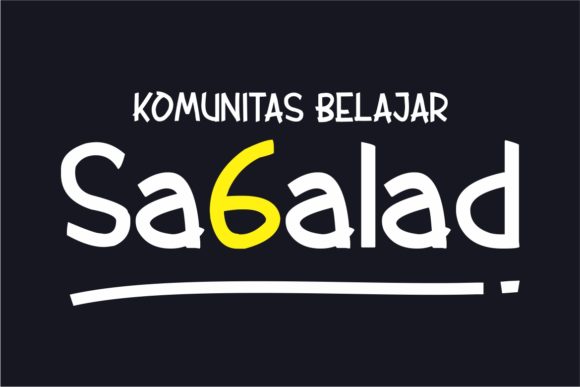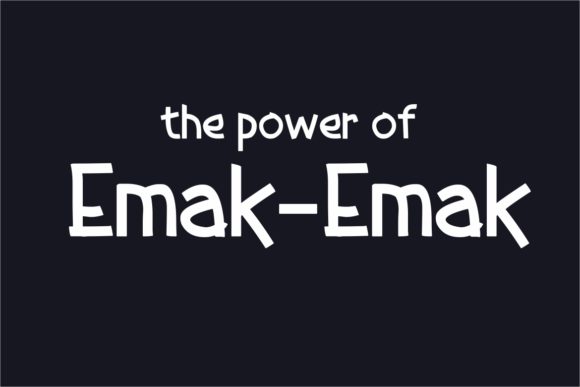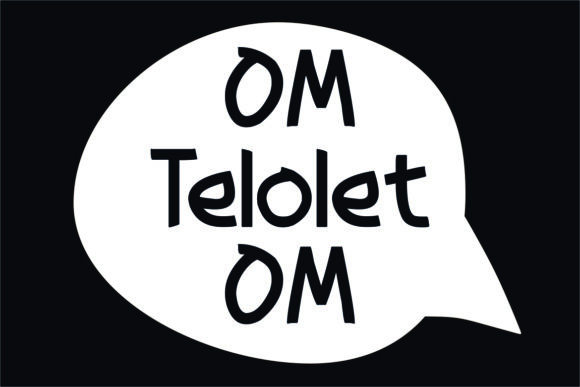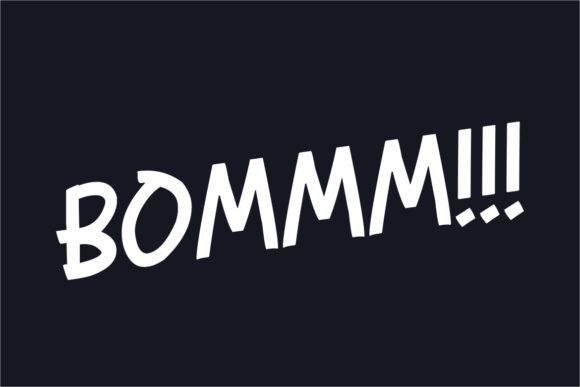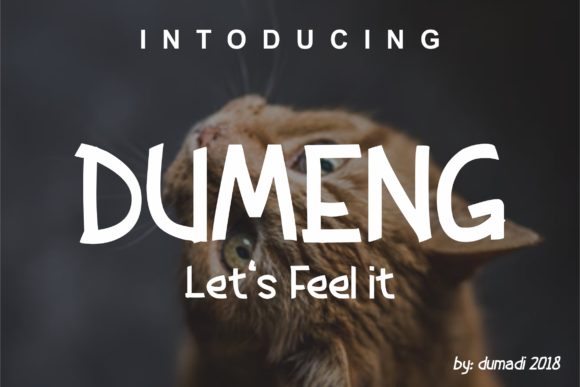
Introducing Dumeng Font: The Modern Typeface for Creative Expression
In the world of typography, fonts play a crucial role in conveying messages, evoking emotions, and creating visual identities. For designers, crafters, and content creators, finding the right font can make all the difference in bringing their ideas to life. This is where Dumeng Font comes in – a modern typeface that exudes a relaxed yet stylish vibe, perfect for a wide range of creative applications.
The Dumeng Font: A Modern Typeface with a Relaxed Look
The Dumeng Font is a contemporary typeface designed to provide a fresh and laid-back feel to various design projects. Its unique characteristics make it an excellent choice for YouTube thumbnail titles, t-shirts, posters, and more. With its clean lines, subtle curves, and optimized letter spacing, Dumeng Font ensures that your message stands out while maintaining an air of sophistication.
Key Features of Dumeng Font
- Modern and Fresh Design: Dumeng Font boasts a sleek and modern design that instantly captures attention. Its unique style is perfect for creators looking to add a touch of contemporary flair to their work.
- Relaxed yet Stylish: The font’s relaxed look makes it ideal for designs that require a friendly and approachable tone. Whether you’re creating a YouTube thumbnail or a poster, Dumeng Font helps you connect with your audience on a more personal level.
- Versatile and Adaptable: Dumeng Font is incredibly versatile and can be used across various platforms and mediums. From digital applications like YouTube thumbnails and social media graphics to print materials like t-shirts and posters, this font adapts seamlessly.
- Easy to Read: One of the key advantages of Dumeng Font is its readability. Even at smaller sizes, the font remains clear and legible, ensuring that your message is conveyed effectively.
Use Cases for Dumeng Font
Dumeng Font’s flexibility makes it suitable for a wide array of projects. Here are some popular use cases:
- YouTube Thumbnails: Stand out in a crowded YouTube landscape with eye-catching thumbnails that utilize Dumeng Font. Its modern and relaxed look is sure to grab viewers’ attention.
- T-Shirts and Merchandise: Add a stylish touch to your apparel and merchandise designs with Dumeng Font. It’s perfect for quotes, slogans, and branding.
- Posters and Flyers: Create visually appealing posters and flyers for events, promotions, or informational purposes. Dumeng Font helps you convey your message in a stylish and readable format.
- Social Media Graphics: Elevate your social media presence with custom graphics that incorporate Dumeng Font. It’s ideal for creating engaging posts, stories, and banners.
Tips for Using Dumeng Font Effectively
To get the most out of Dumeng Font, consider the following tips:
- Pair with Complementary Fonts: Experiment with font pairings to create visual interest. Dumeng Font works well with both serif and sans-serif fonts.
- Adjust Letter Spacing: Fine-tune letter spacing to suit your design’s needs. This can help improve readability and aesthetics.
- Play with Colors: Don’t be afraid to experiment with different colors. Dumeng Font looks great in bold colors and can also be used in subtle, muted tones.
Dumeng Font is a versatile and stylish typeface that can elevate your designs to new heights. Its modern yet relaxed look makes it perfect for a variety of applications, from digital content to print materials. Whether you’re a designer, crafter, or content creator, Dumeng Font offers a fresh and engaging way to express yourself and connect with your audience. So, go ahead and explore the creative possibilities with Dumeng Font – your next design project is just a font away!